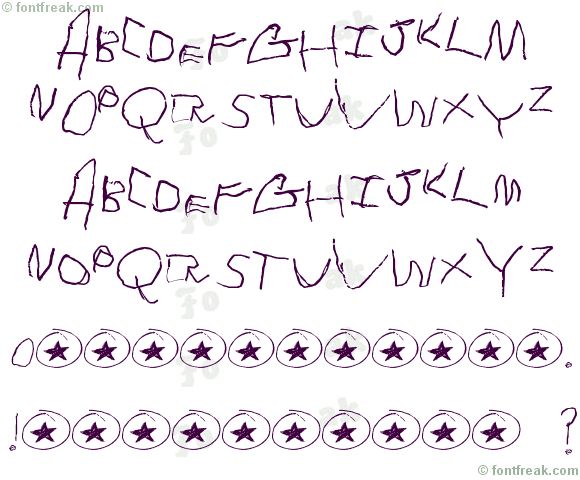
Tommy's First Alphabet
About Tommy's First Alphabet
Tommy's First Alphabet, designed by Divide By Zero, is a playful handwritten font that brings a whimsical charm to any design project. This freeware typeface features irregular stroke weights that mimic the natural inconsistencies of hand-drawn letters, making it a delightful choice for those seeking a more personal touch. The characters are loosely spaced, giving them an airy feel while maintaining readability. Decorative elements, such as stars and playful lines, add character and make the font stand out in a variety of contexts.
Ideal for a range of creative applications, Tommy's First Alphabet is perfect for children's book covers, playful educational materials, and invitations for birthday parties. Its unique style resonates well in contexts that aim to evoke nostalgia or a sense of carefree fun. Graphic designers and content creators looking for an engaging typeface will find it particularly useful for crafting eye-catching social media graphics and promotional materials for family-friendly events. Small business owners can also leverage this font for branding, especially in sectors related to children, such as toy stores or educational services.
What sets Tommy's First Alphabet apart is its ability to convey a sense of joy and creativity through its distinctive design. This font is not just a typeface; it's an invitation to embrace imagination and playfulness. By offering a Tommy's First Alphabet font free download, Divide By Zero allows designers and creators to explore its potential without any financial barriers. This accessibility encourages innovative uses, making it a valuable addition to any typographer's toolkit. Whether for professional projects or personal endeavors, this font is sure to inspire and engage audiences of all ages.